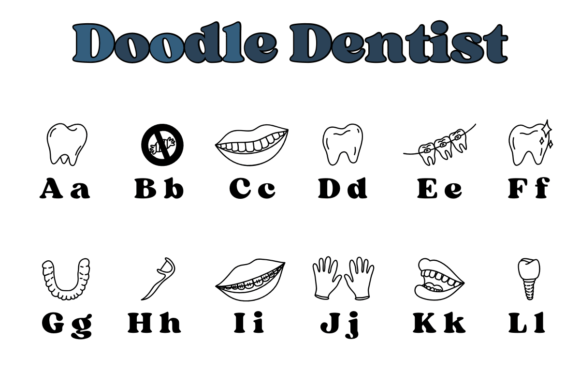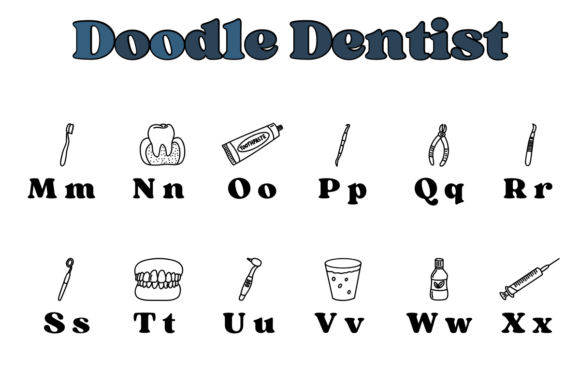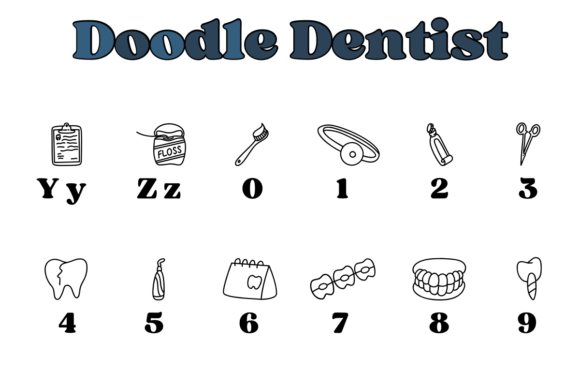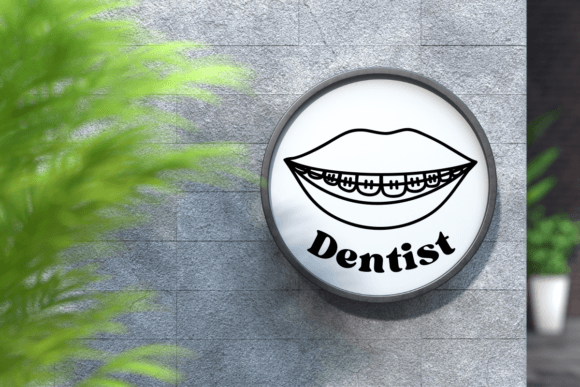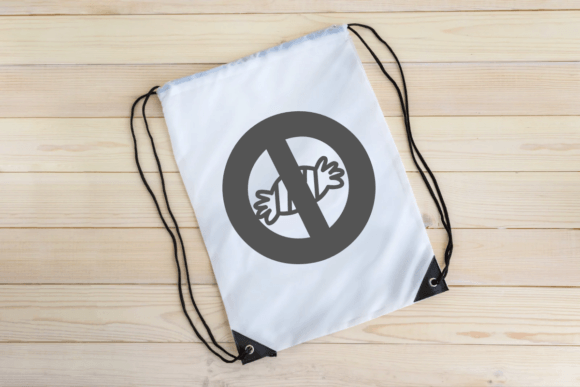
Introduction to Doodle Dentist Font
“Doodle Dentist” is a fun font that uses pictures instead of letters.
The pictures are all about dental items, like toothbrushes, teeth, and dental tools It’s perfect for making dental-themed designs and projects look cute and creative.
Key Features of Doodle Dentist Font
Why Choose Doodle Dentist Font?